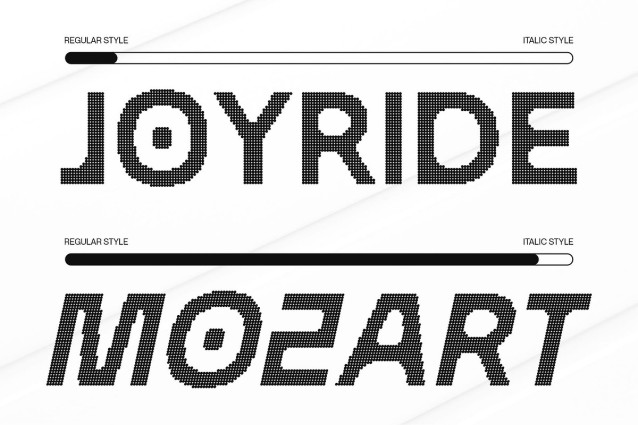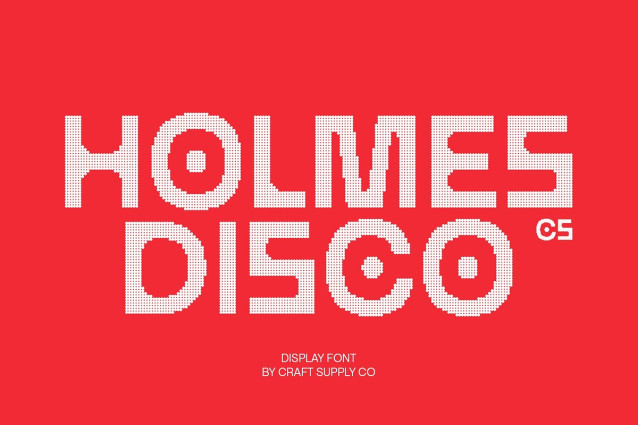
CS Holmes Disco Font
CS Holmes Disco Font – This is a bold modern sans serif font that merges futuristic design with artistic flair. Its strong, structured forms exude technical precision, making it a font that immediately commands attention. What elevates this typeface is the disco shimmer effect, which layers a stylish, energetic glow over its clean geometry perfect for projects clarity and personality.
Bold Structure for Impact Every letterform in this font is built with power and confidence. The bold strokes and contrast proportions deliver maximum visibility, ensuring your text holds its ground in any setting. This structure makes it an excellent choice for posters, banners, and visual identities where impact is essential.
Stylish Glow with Disco Detail The disco shimmer effect introduces an unexpected layer of vibrancy. Instead of feeling overly rigid, the font takes on a sense of movement and glamour, softening its technical nature with artistic charm. This stylish glow makes it highly suitable for fashion branding, event posters, and digital campaigns that demand a touch of sparkle.
Versatility Across Mediums This is designed to thrive across diverse creative applications. From futuristic branding to bold editorial layouts, its balance of strength and shimmer ensures it adapts beautifully. Whether you’re crafting a futuristic logo, designing high-energy posters, or experimenting with modern layouts, this font offers the perfect mix of precision style.